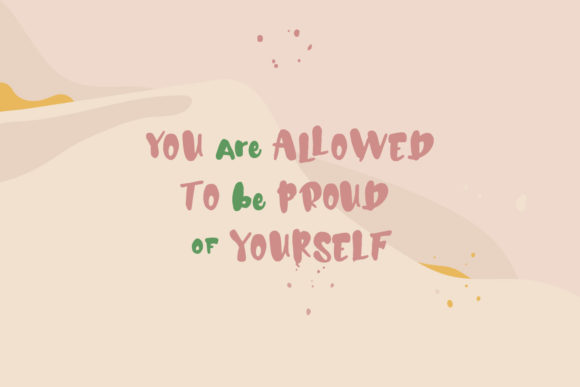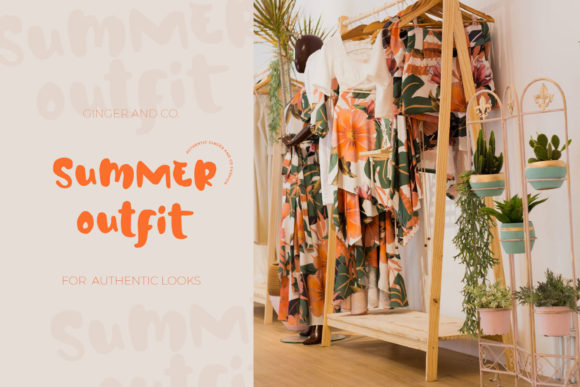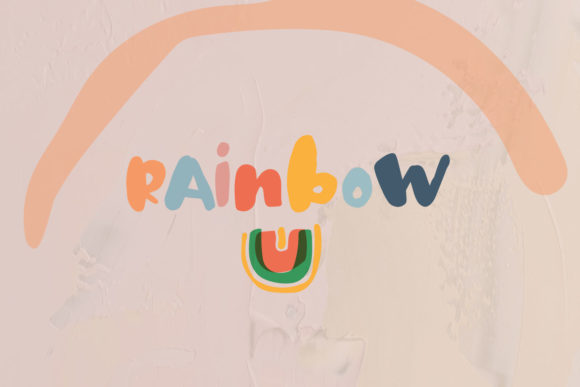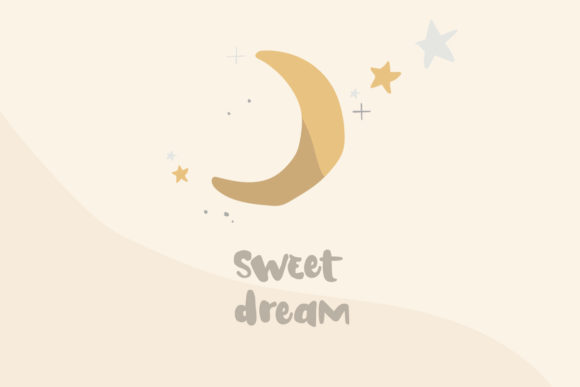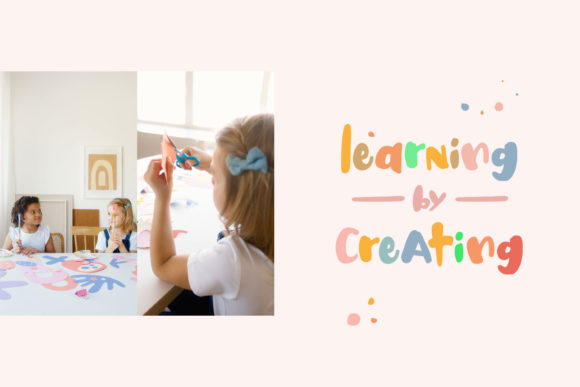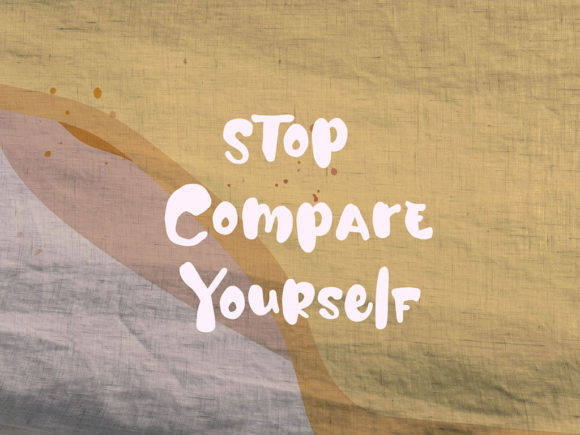
Introduction to Marker Project Font
Have you ever stared at a blank canvas, eager to bring your creative vision to life, only to be stumped by the perfect font to match your aesthetic? I’ve been there too. That’s why I’m excited to introduce you to Marker Project Font, a charming display font that’s about to become your new go-to design resource.
With its perfect balance of thickness and variety, Marker Project Font is designed to elevate the beauty of your creative projects, whether you’re working on a digital design, a print project, or even a presentation. This high-quality font is not only visually stunning but also versatile enough to work with a transparent background, giving you the freedom to experiment with different design elements.
Key Features of Marker Project Font
- Unique, hand-drawn style with a transparent background, allowing for seamless integration into various designs.
- Perfect for designers, artists, and writers looking for a distinctive and professional design resource.
- Comes with a comprehensive character set, including uppercase and lowercase letters, numbers, and punctuation marks.
Honest Review: Marker Project Font
As a designer, I’m always on the lookout for high-quality design resources that can elevate my creative projects. The Marker Project Font is one such resource that caught my attention.
What works well: ✨ The Marker Project Font is a beautiful, free download that offers a unique and stylish aesthetic. It’s perfect for adding a personal touch to your designs. The font is highly customizable, allowing you to easily adjust the color, size, and spacing to suit your needs.
- Transparent background option for seamless integration with other design elements
Overall impression: The Marker Project Font is a fantastic design resource that’s perfect for personal projects or design experiments. While it may have some limitations, its unique aesthetic and high-quality design make it a valuable addition to any design library.
Marker Project Font
Tips for Getting the Most Out of Marker Project Font
Use Marker Project Font for creative projects that require a unique and eye-catching design. You can also use it as a design resource for social media graphics, posters, or flyers. To get the most out of the font, experiment with different font sizes, colors, and styles to create a high-quality design.
Marker Project Font is ideal for use in creative projects such as:
Artistic illustrations
Hand-drawn designs
Whimsical graphics
Comparison to Marker Project Font: Great Vibes Font has a more elegant and refined look compared to Marker Project Font, which has a more playful and handwritten feel.